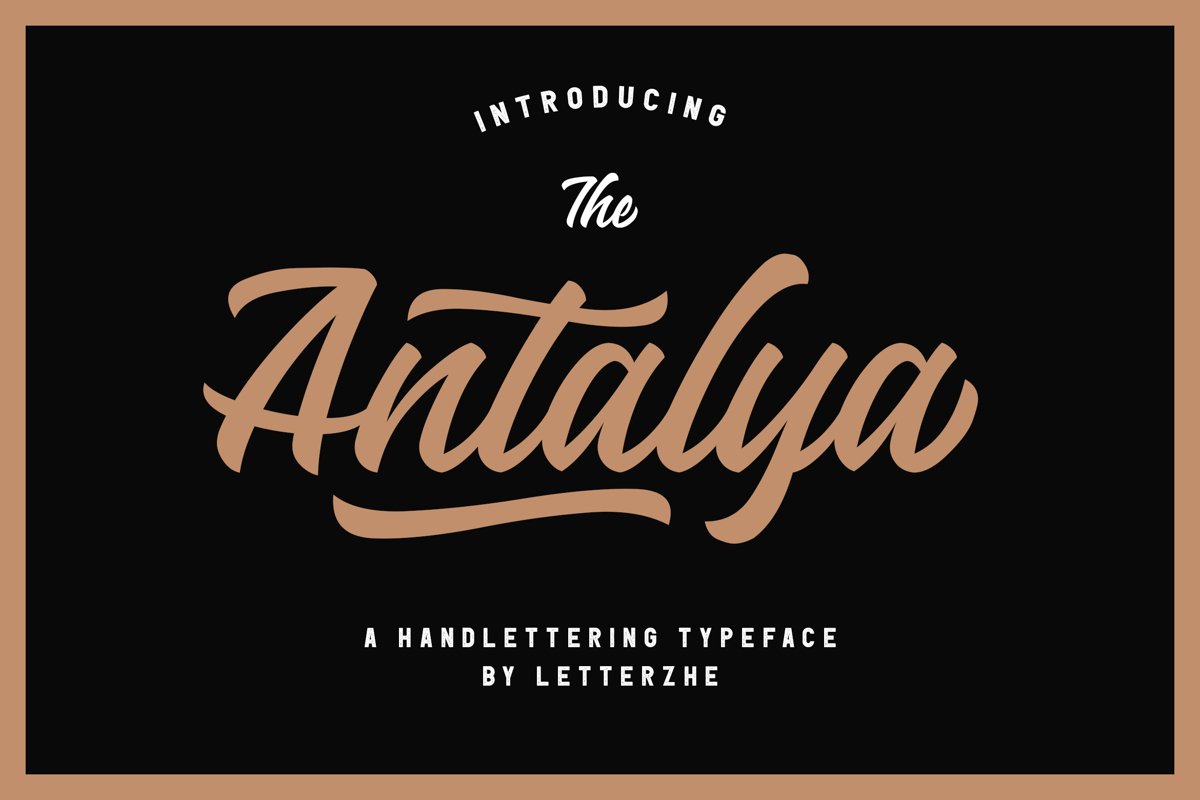
Antalya
Antalya is a modern and clean brush calligraphy font with an incredible charm. It will turn any design idea into a stunner! Is perfect for quotes, branding, clothes, logos and anything else.
Feature :
• Swashes
This font is support for multilingual languages.